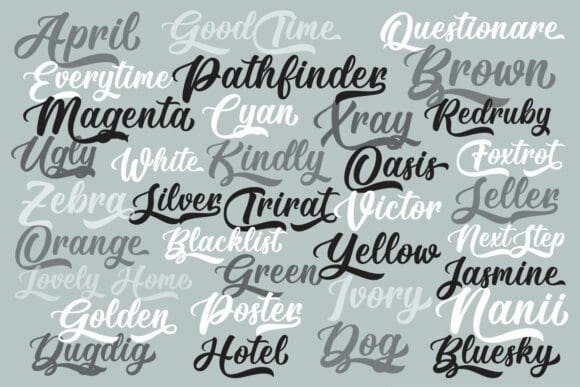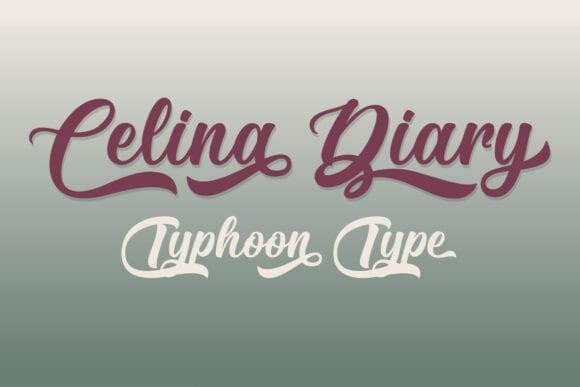
Celina Diary Font
Celina Diary Font is a beautifully crafted font inspired by the elegant strokes of flat-brush writing. It features retro ribbon-style lettering with a vintage flair, creating a timeless and classic aesthetic. The overall design of the font leans slightly to the side, adding a sense of movement and sophistication.
Each uppercase letter is adorned with gracefully sweeping tails, giving it a flowing and refined appearance. Additionally, every lowercase letter comes with special alternative characters (PUA encoded) that include playful, extended tails designed to harmonize perfectly with the uppercase letters.
Celina Diary combines charm and versatility, making it an ideal choice for adding a touch of elegance and creativity to your designs.